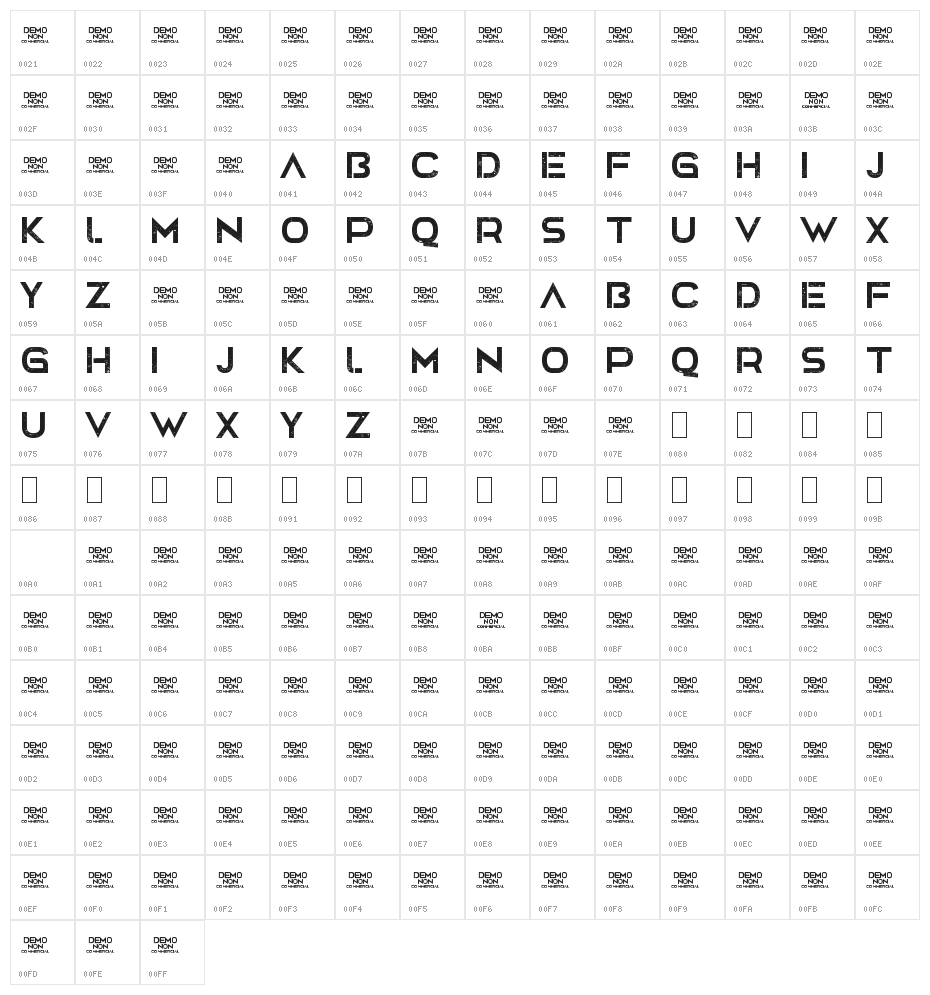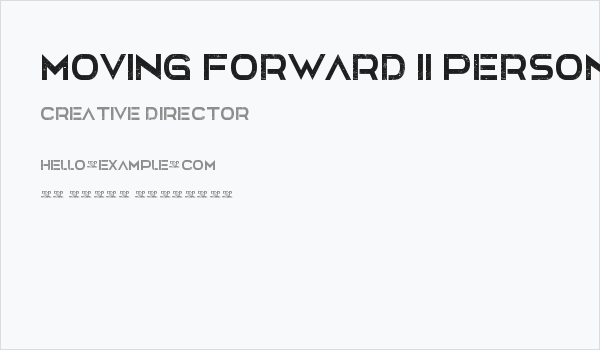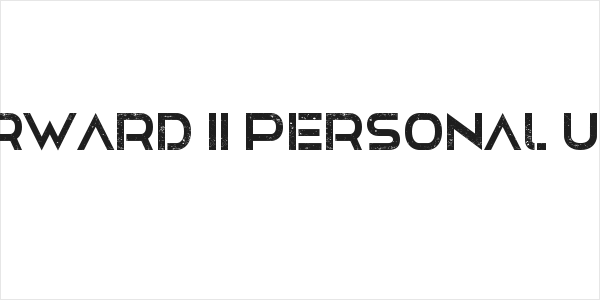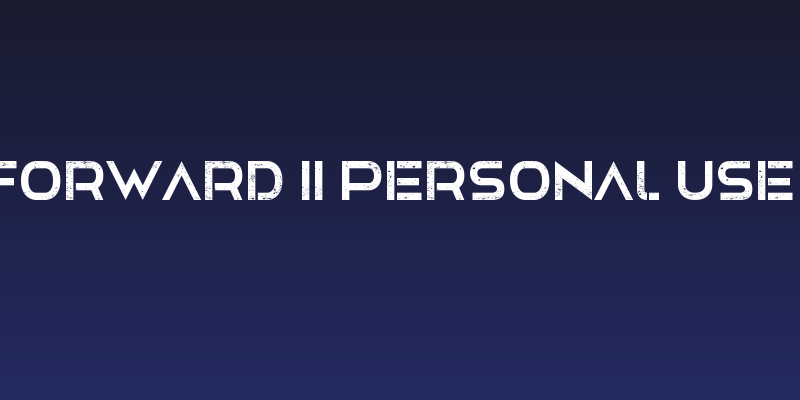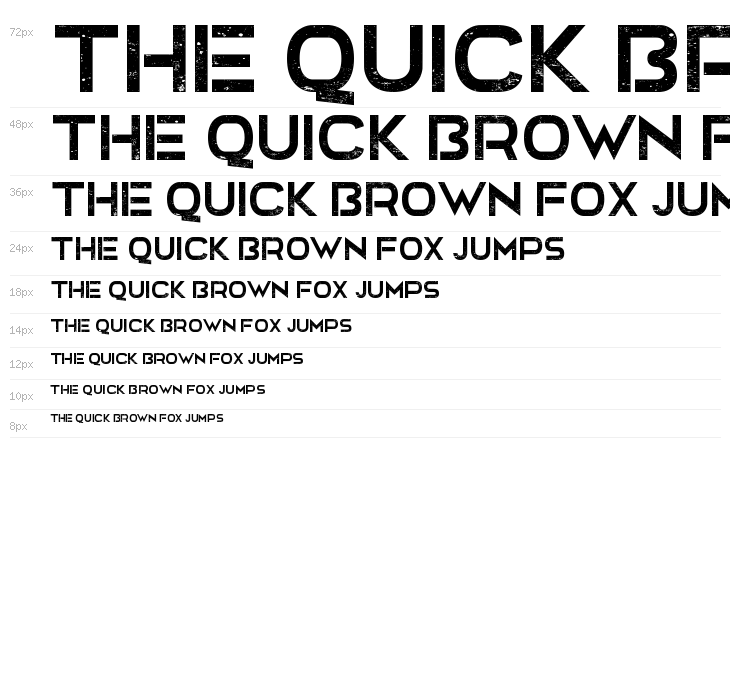
Moving Forward II Personal Use Grunge Font
Moving Forward II Personal Use Grunge Description
This font features a bold, grunge style with a distressed texture that gives it a rugged and edgy appearance. The uppercase letters are designed with sharp angles and geometric shapes, creating a modern and industrial feel. The characters are evenly spaced, maintaining a consistent width throughout. This font is ideal for projects that require a strong and impactful visual presence, such as posters, album covers, or branding for edgy and contemporary products. Its unique texture adds a layer of depth and character, making it stand out in any design.
| Overall Style | Modern, Grunge |
| Proposed Projects | Posters, album covers, edgy branding, contemporary product packaging. |